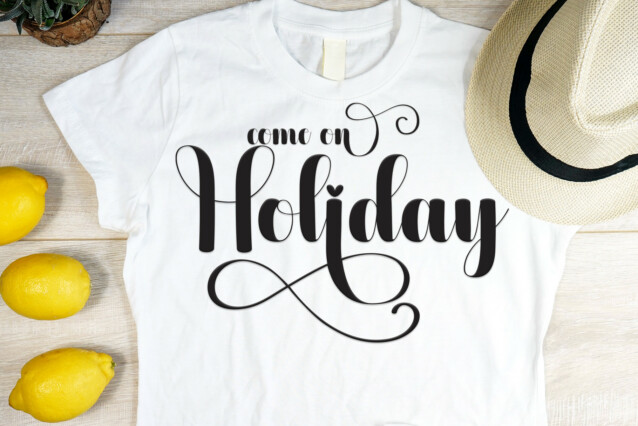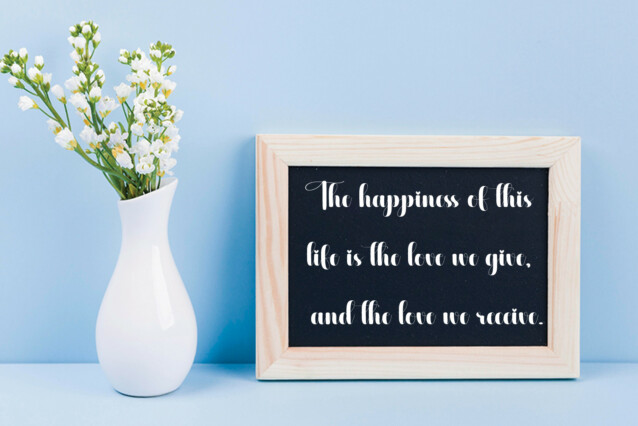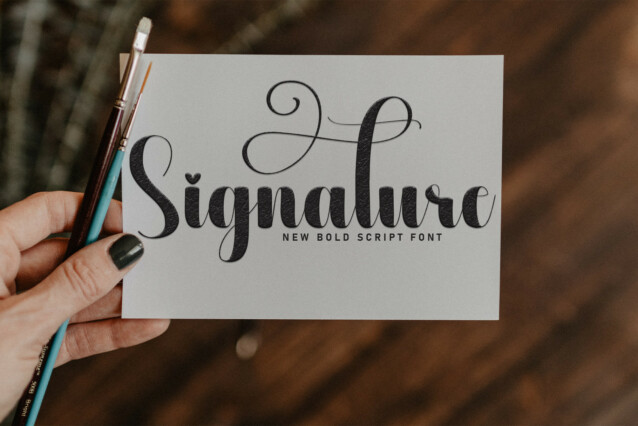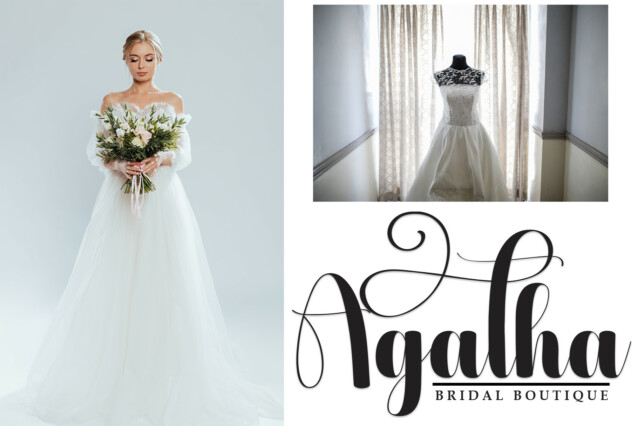
Monalisa Script Font
Monalisa Script Font is a stylish and incredibly elegant script font. It looks stunning on wedding invitations, thank you cards, quotes, greeting cards, logos, business cards and every other design which needs a handwritten touch.